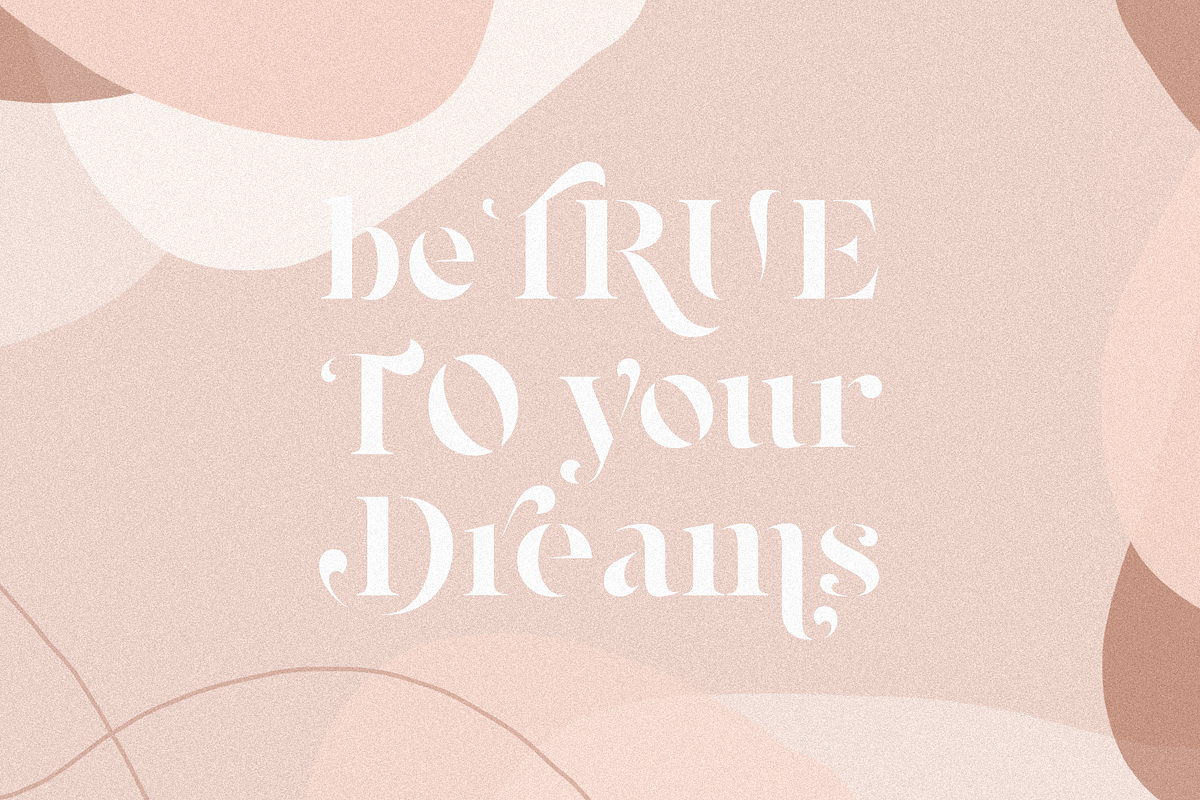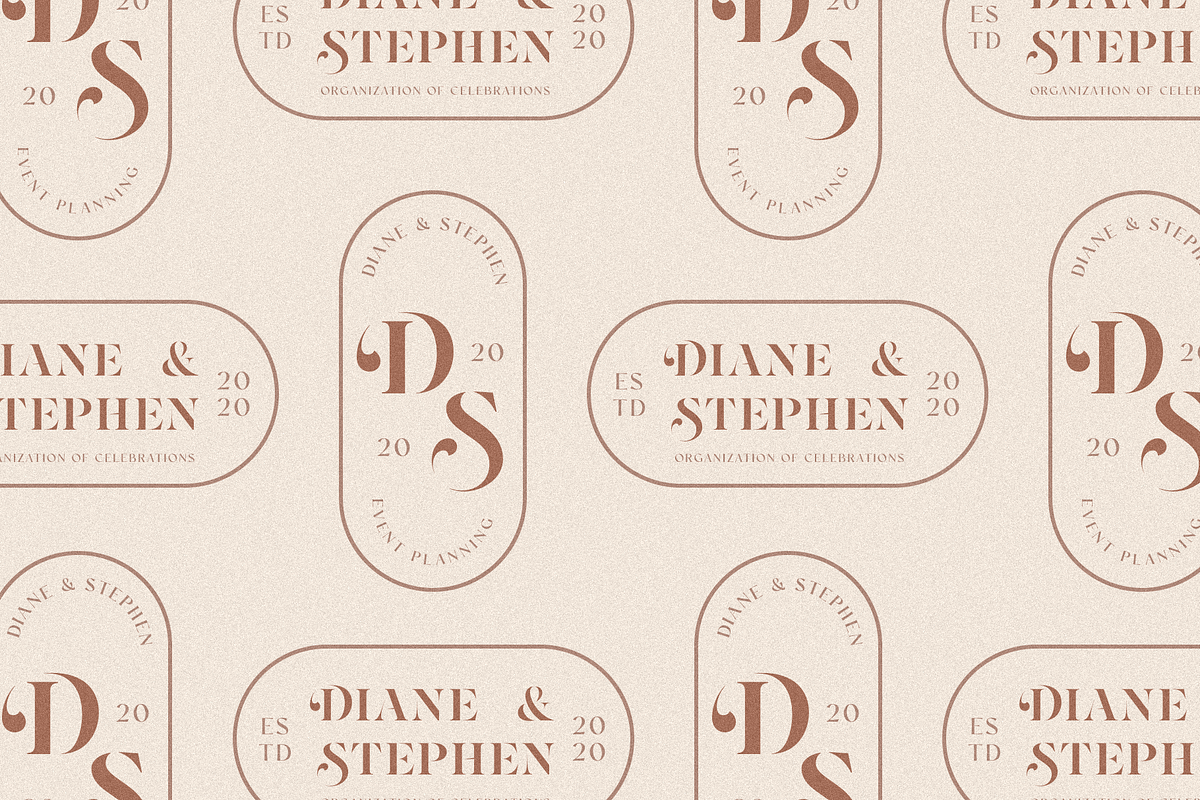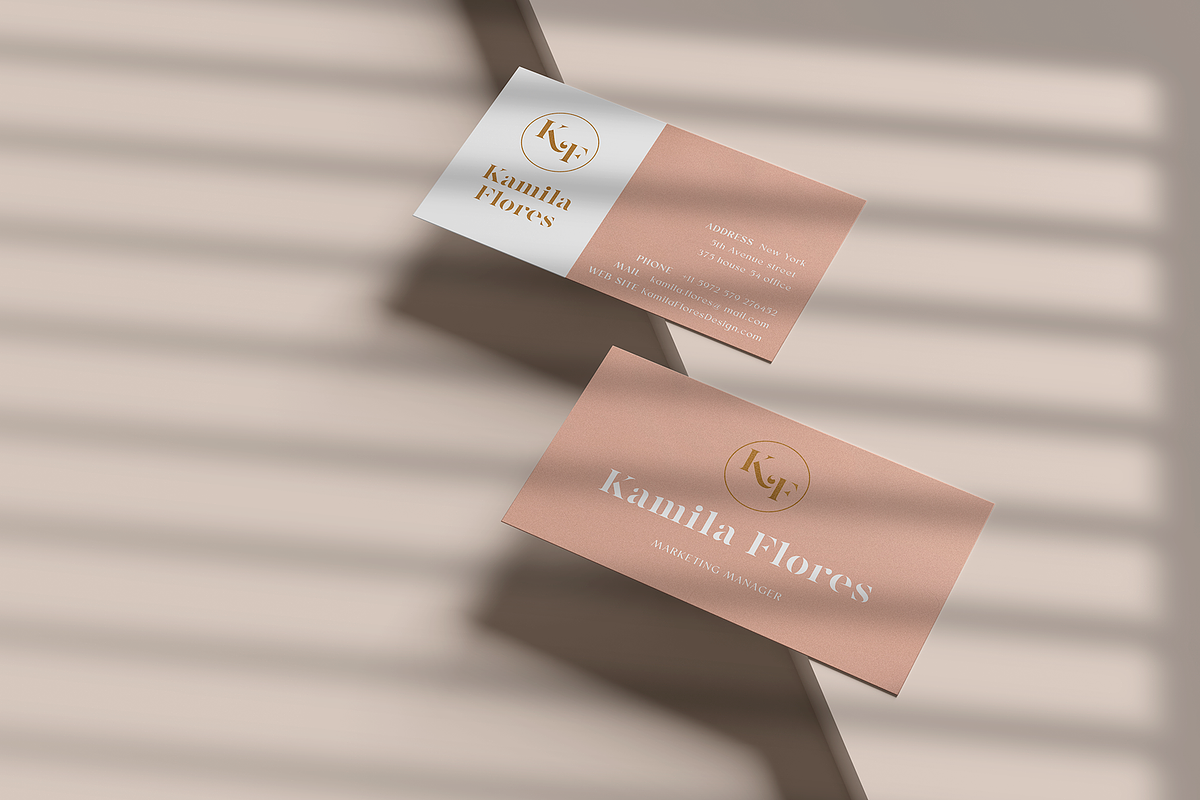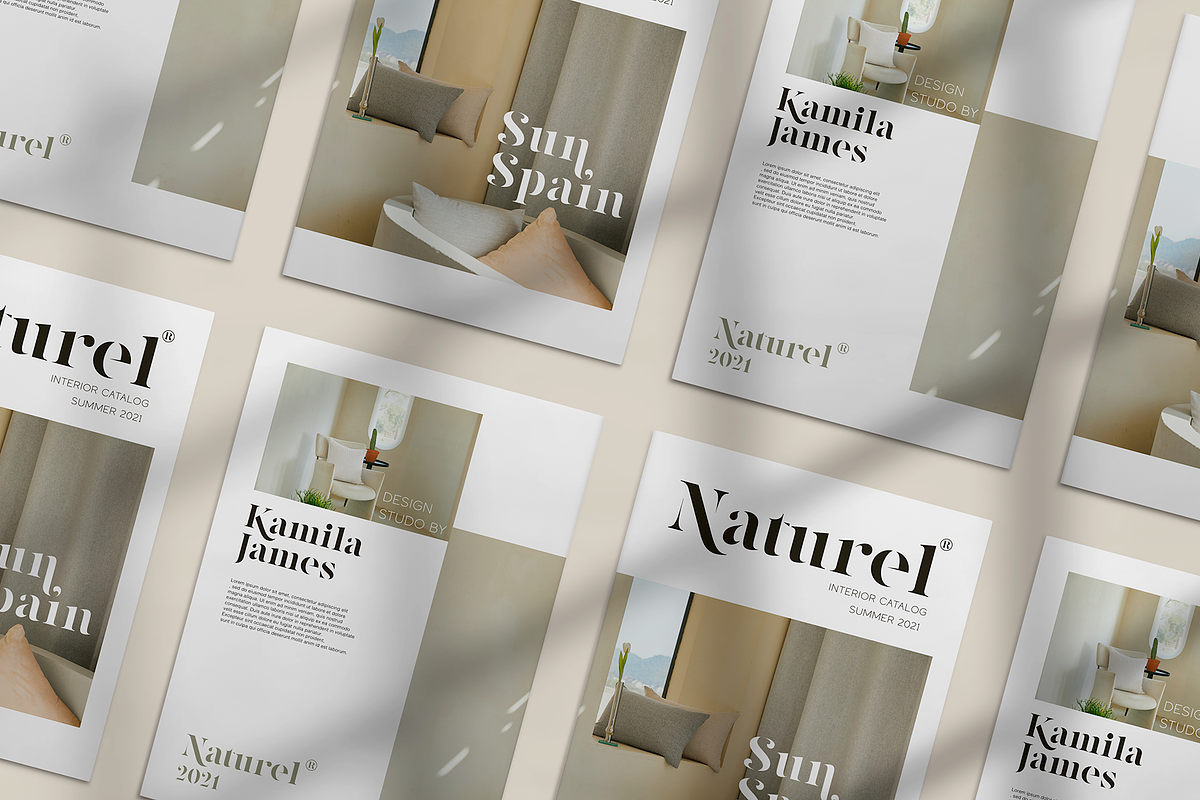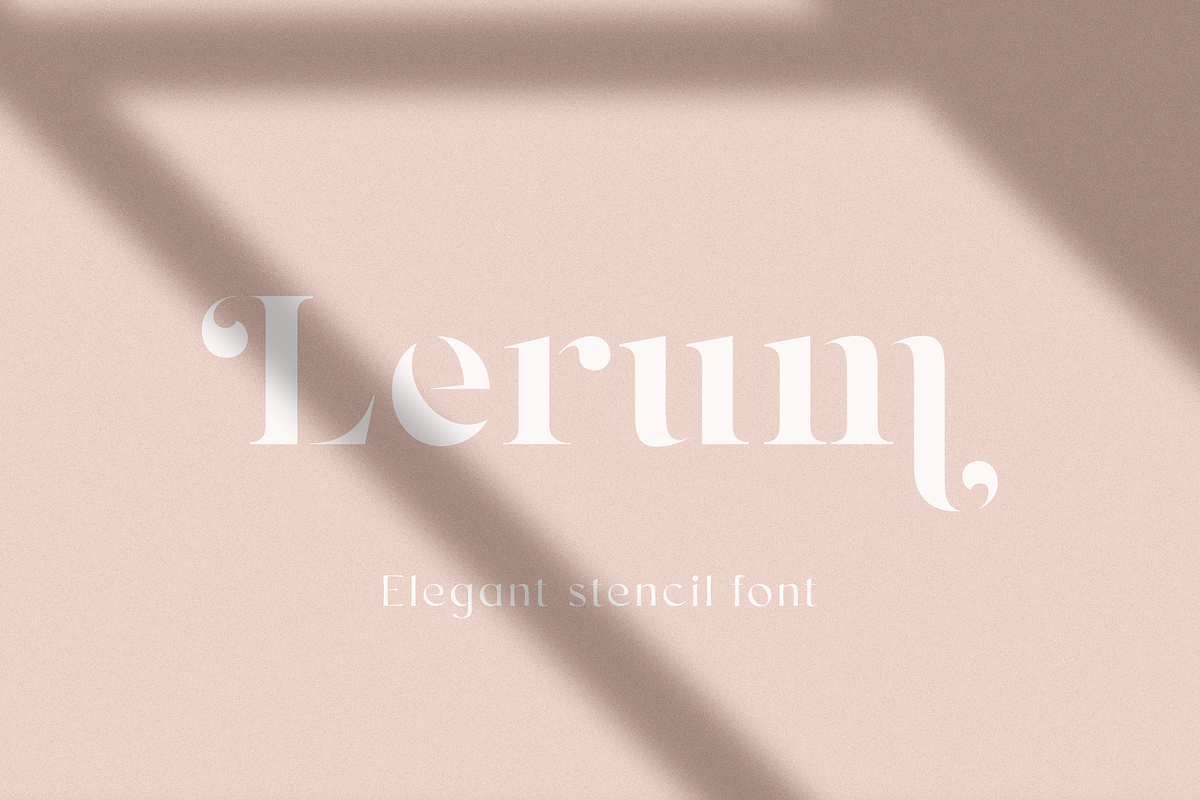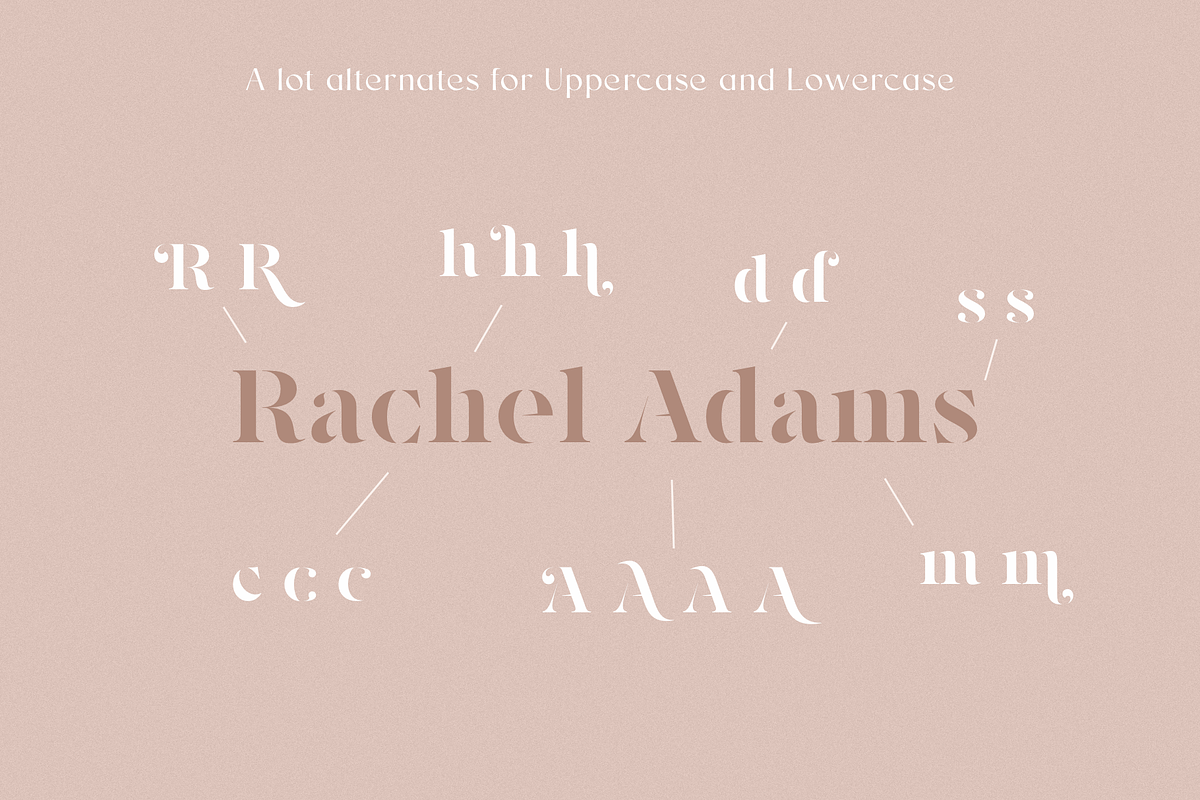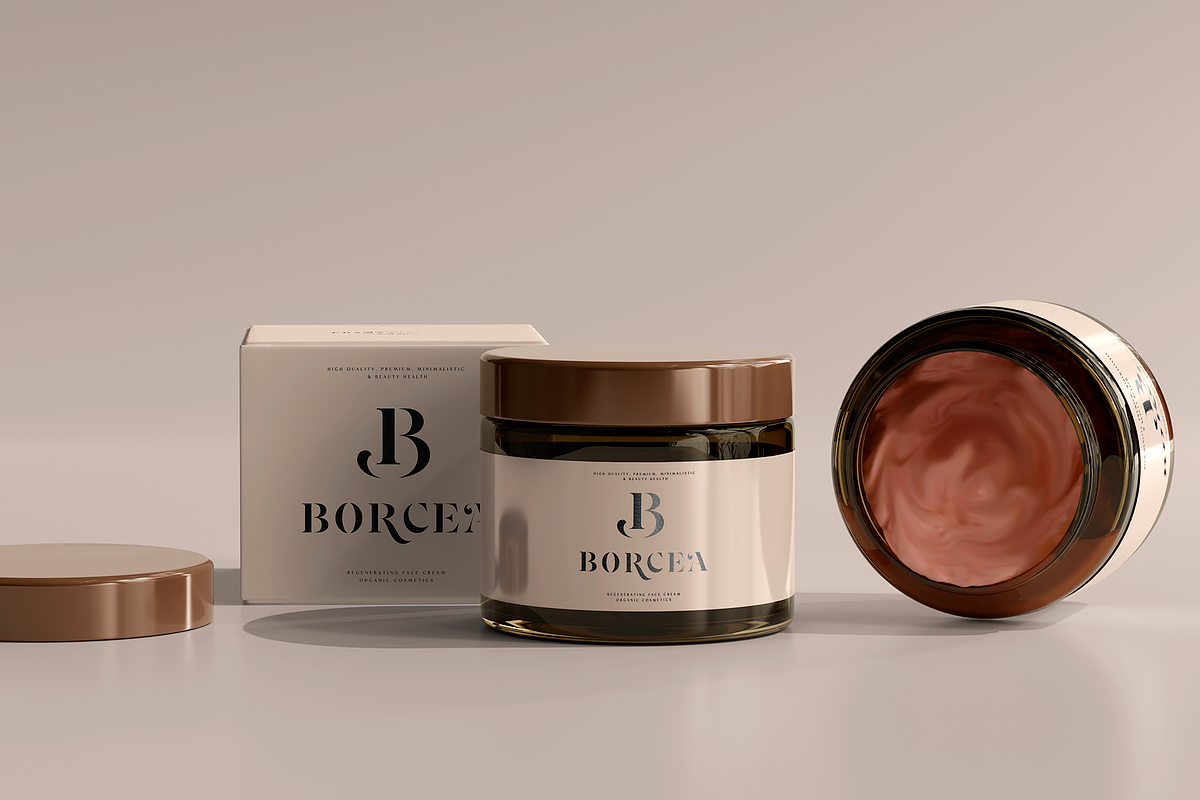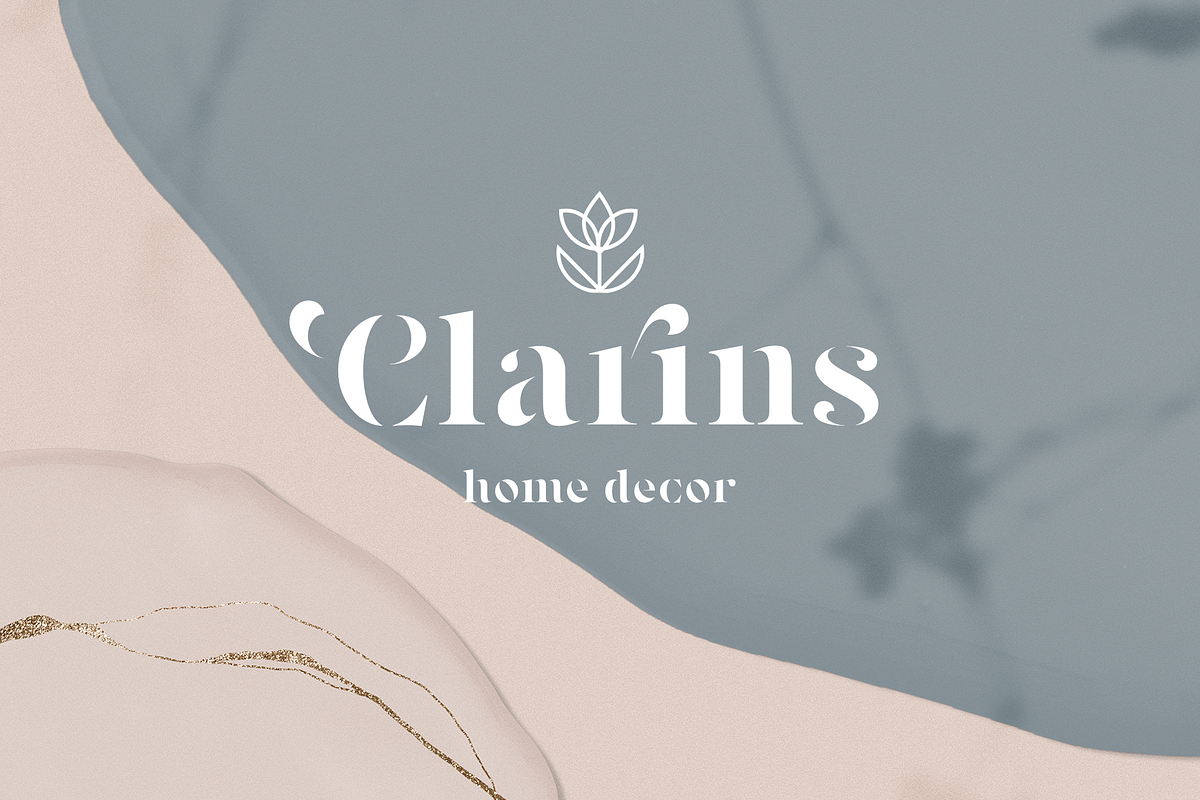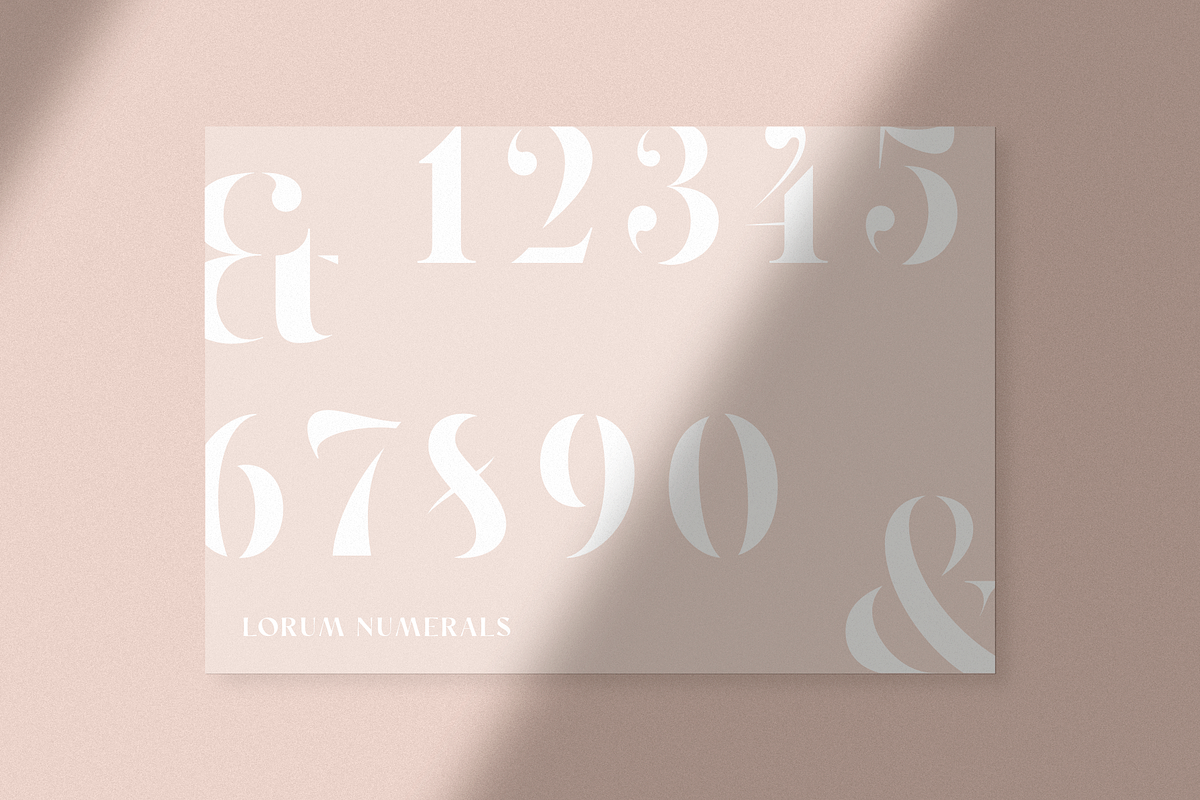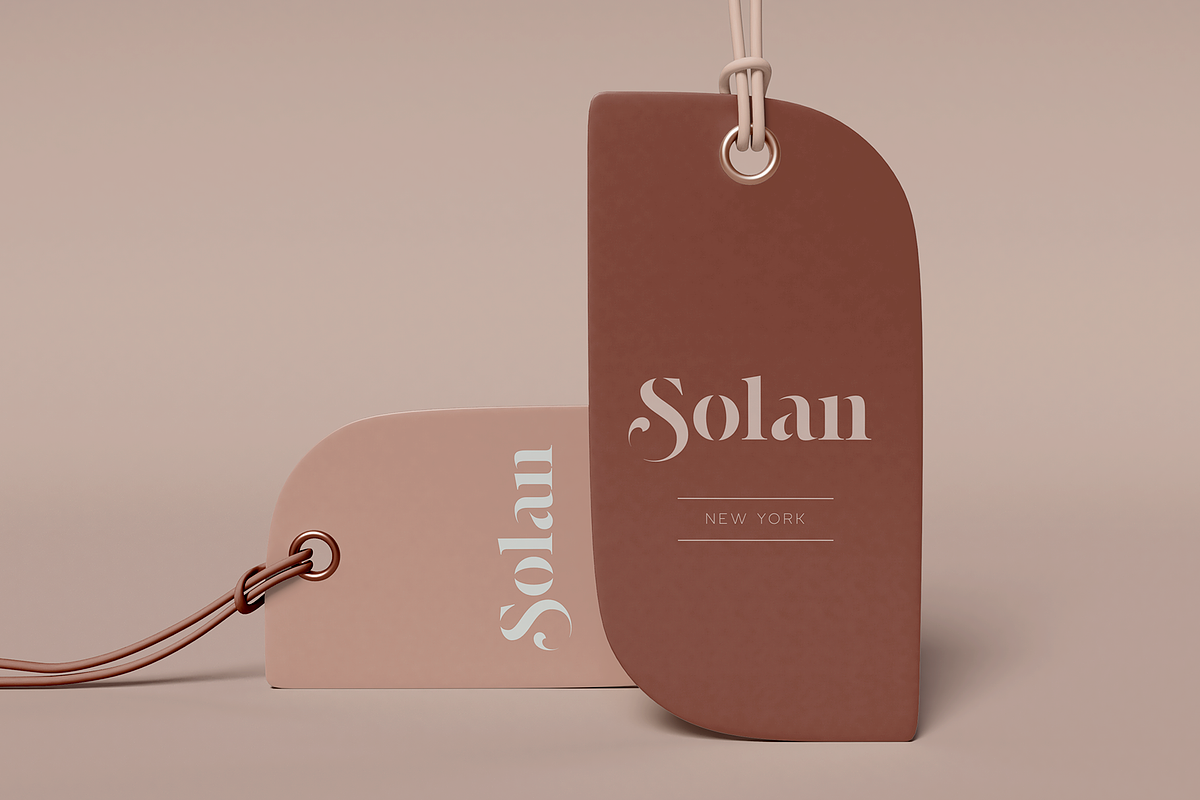
Lerum
Lerum this is elegant stencil font.
Classic serif, bold weight, stencil style, it all carries this font and with it in highlight the main thing, make a title or logo and much more. It can also be more expressive and playful, thanks to the many alternates that are harmoniously combined in this font and make it more attractive and expressive. Try to change the alternatives, ligatures and you will get a lot of options for your project that will make it unique. This font is easy to use and has OpenType features.
Following international symbols support: ÀÁÂÃÄÅĄÇĆÈÉÊËĘÌÍÎÏÐÑŃŁÒÓÔÕÖØÙÚÛÜŚŠŸÝŹŻŽßàáâãäåçèéêëìíîïðñòóôõöøùúûüýÿąćęłńśšźżž
Full alphabet with Uppercase and Lowercase A-z
Numbers, fractions
Punctuation and symbols
Alternates for Uppercase
Alternates for Lowercase